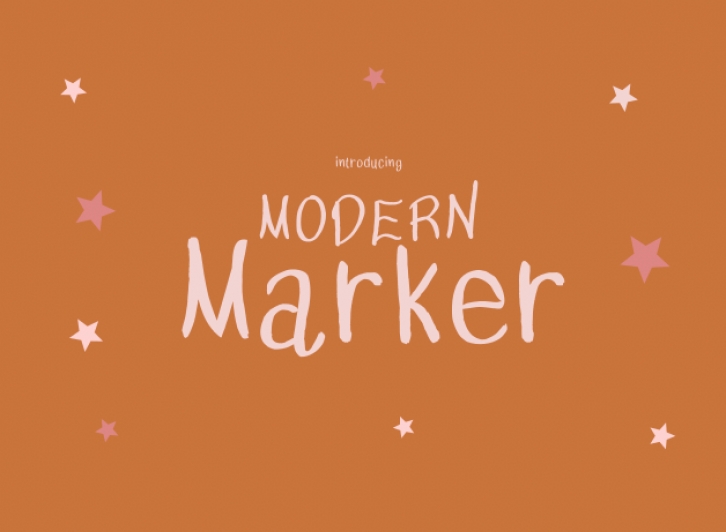
Modern Marker is a quirky and fun handwritten font. Whether you’re using it for crafts, digital design, presentations, or making greeting cards, this font has the potential to become your favorite go-to font, no matter the occasion!